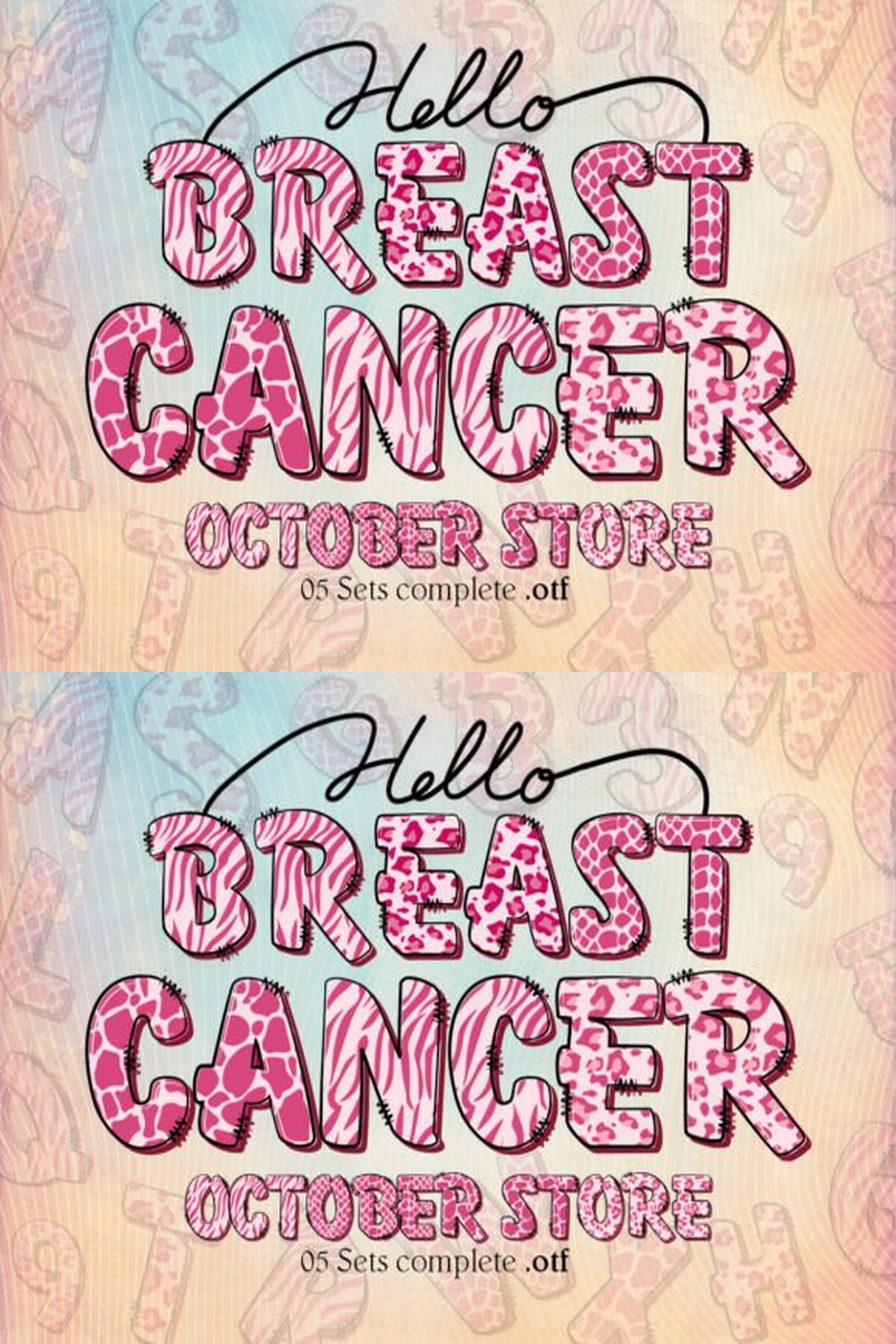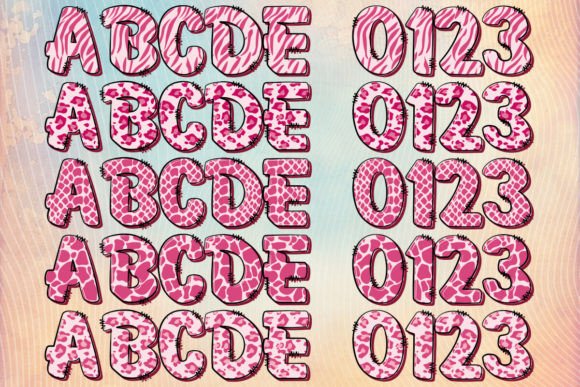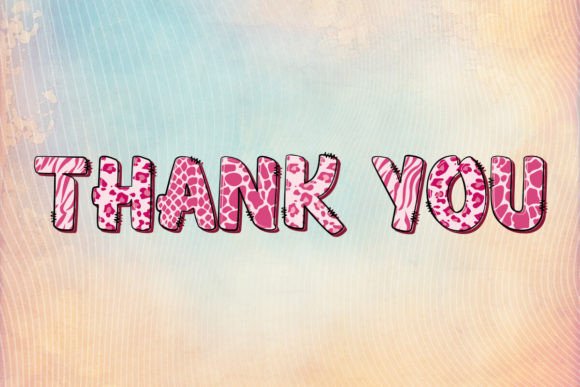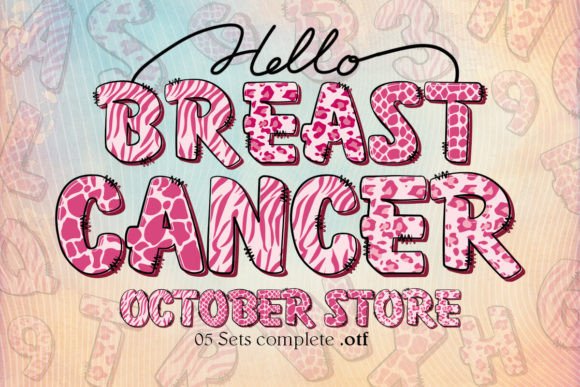
About the Breast Cancer Font
Experience the unique personality of Breast Cancer Font, a font designed for impact. Introducing the eye-catching Breast Cancer Safari Font – a vibrant visual tribute promoting breast cancer awareness. Immerse yourself in the strikingly interesting combination of fierce wild animal patterns rendered in a soft pink safari skin. This distinct font serves as a bold reminder of the resilience and tenacity of those battling breast cancer, especially evident every October as we all proudly wear pink.
Its energetic theme radiates strength and bravery, making it perfect for campaigns, merchandise, informal messaging, and more. Show your support and love by showcasing this extraordinary font to affirm that, in October and onwards, pink is more than just a color – it symbolizes a fight we’re in together.